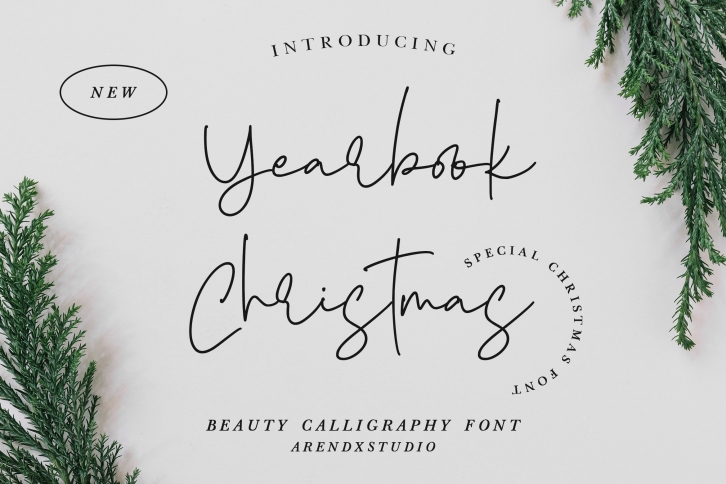
Yearbook Christmas is a stylish and timeless handwritten font. It is the best choice for creating eye catching logos, branding and quotes. Every letter has a unique and beautiful touch, which will make your design come alive!